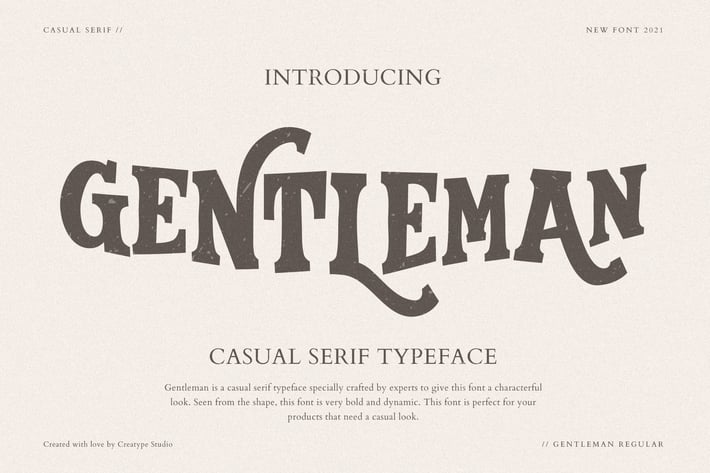
Gentleman Serif Business Font
Gentleman is a casual serif typeface made especially for a look that uses a bold feel in it. There is a unique curve in this font, making this font different from the others.
Gentleman is perfect for branding projects, logo, wedding designs, social media posts, advertisements, product packaging, product designs, label, photography, watermark, invitation, stationery and any projects that need handwriting taste.
Ton of glyphs
Ligature & Alternate